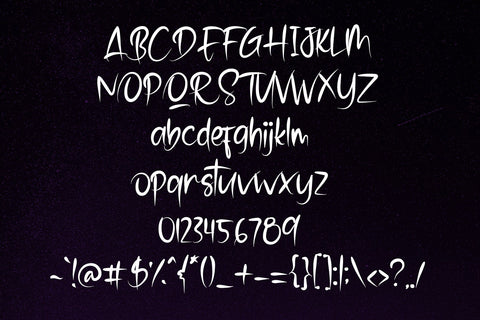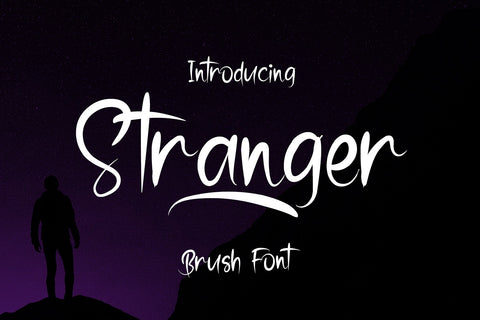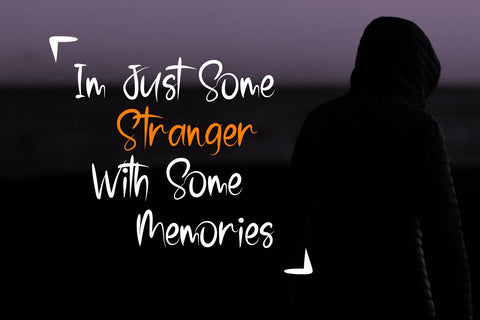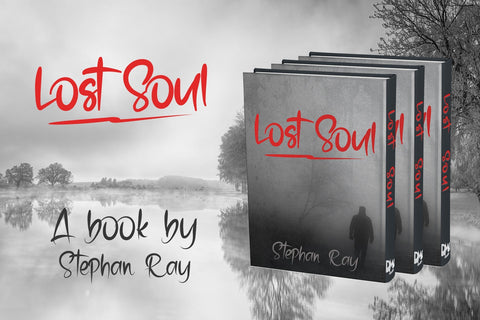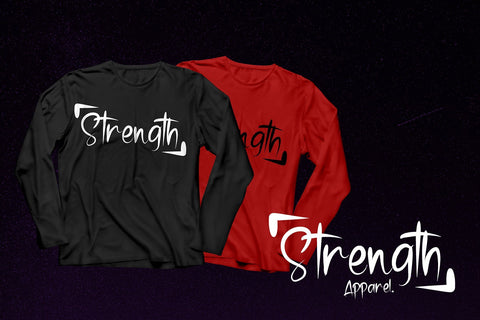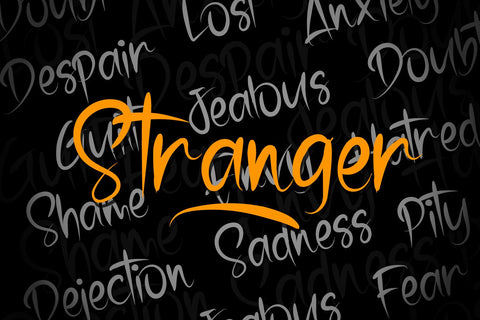
Stranger - Brush Font
Stranger is a messy handwritten brush font style
The irregular strokes gives the unique and different results in every words.
• Uppercases , lowercases
• Numbers
• Standard Symbols and punctuations
• Multilingual Support
• 26 Decorative Swashes